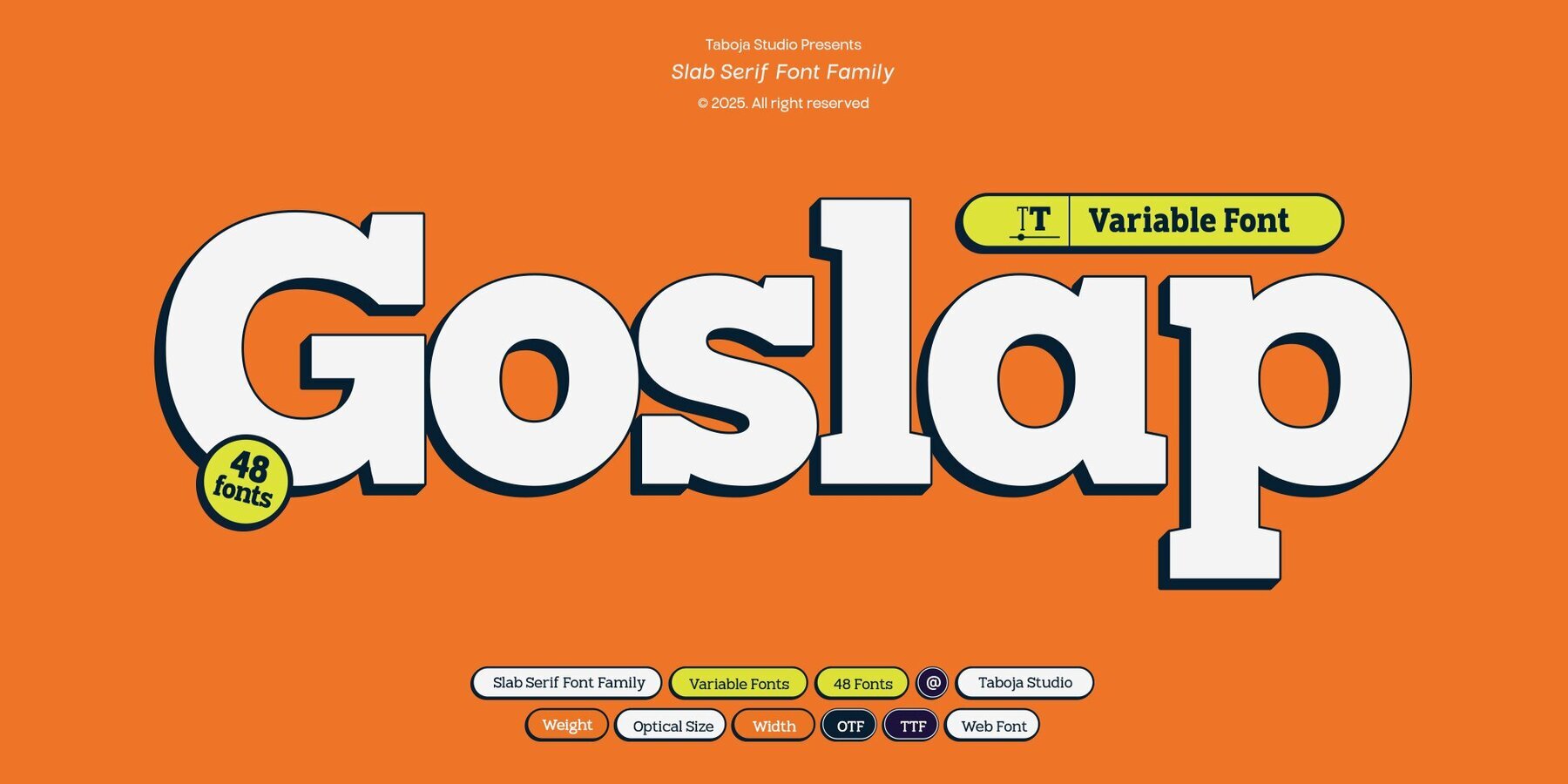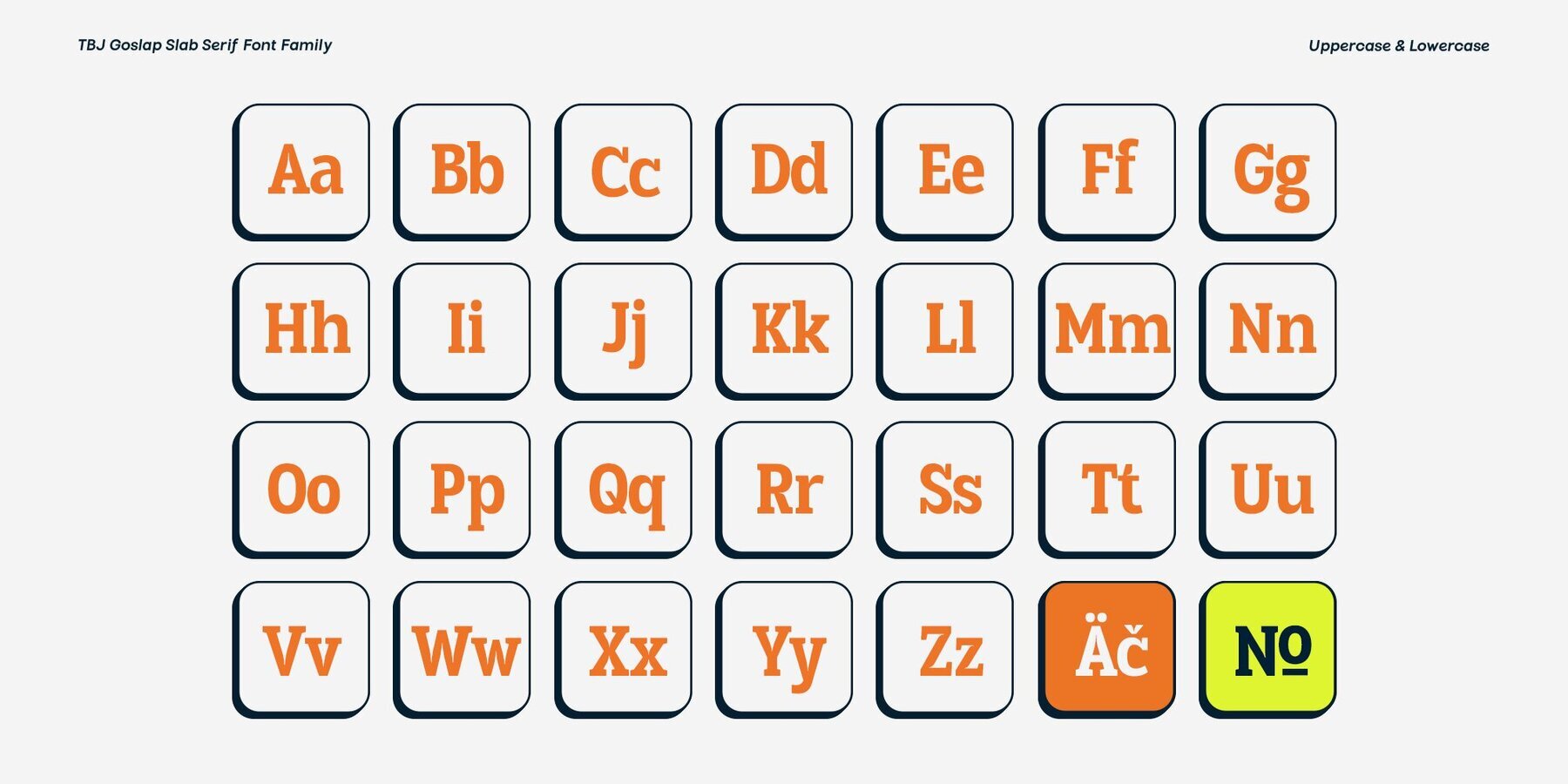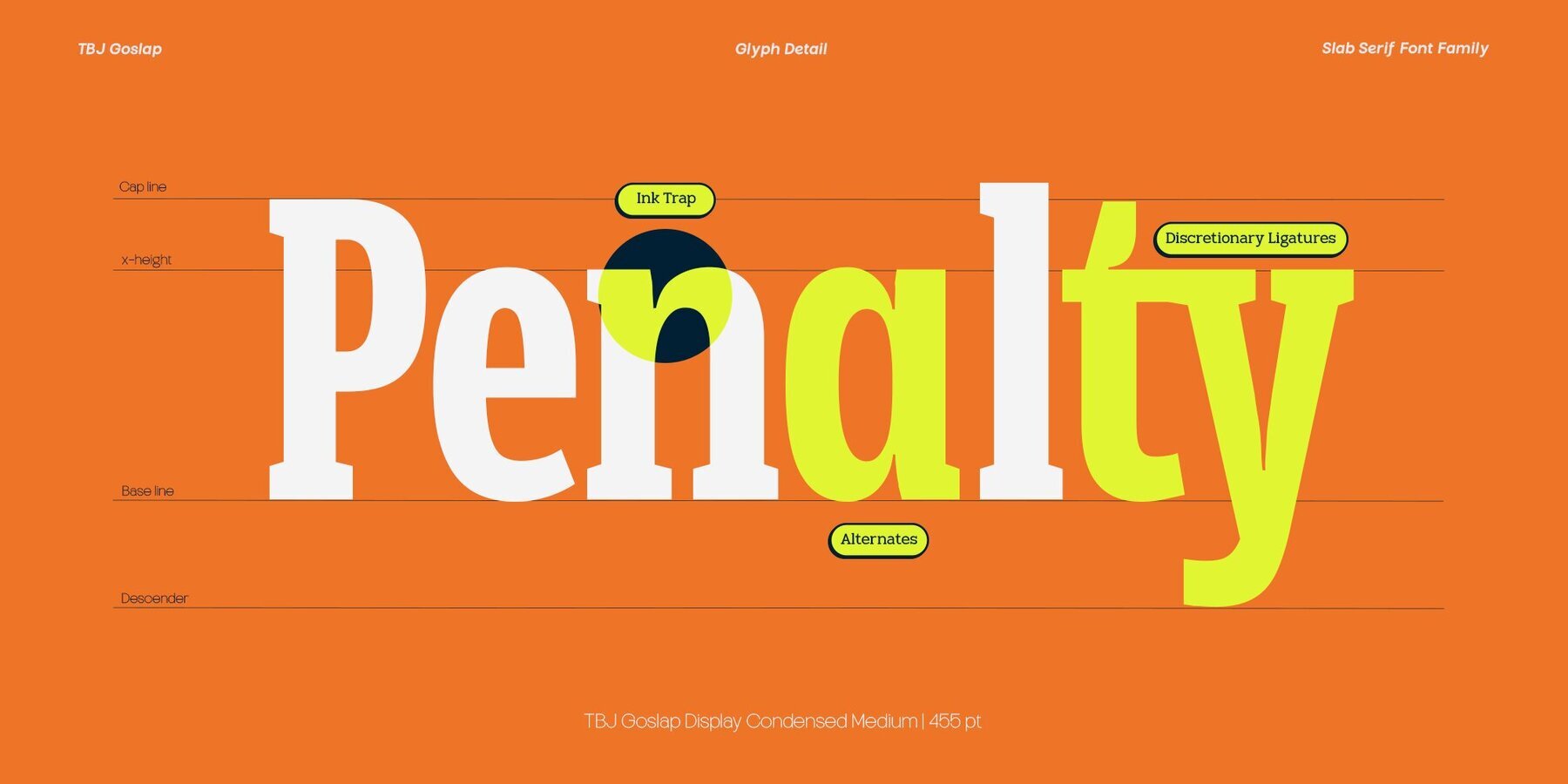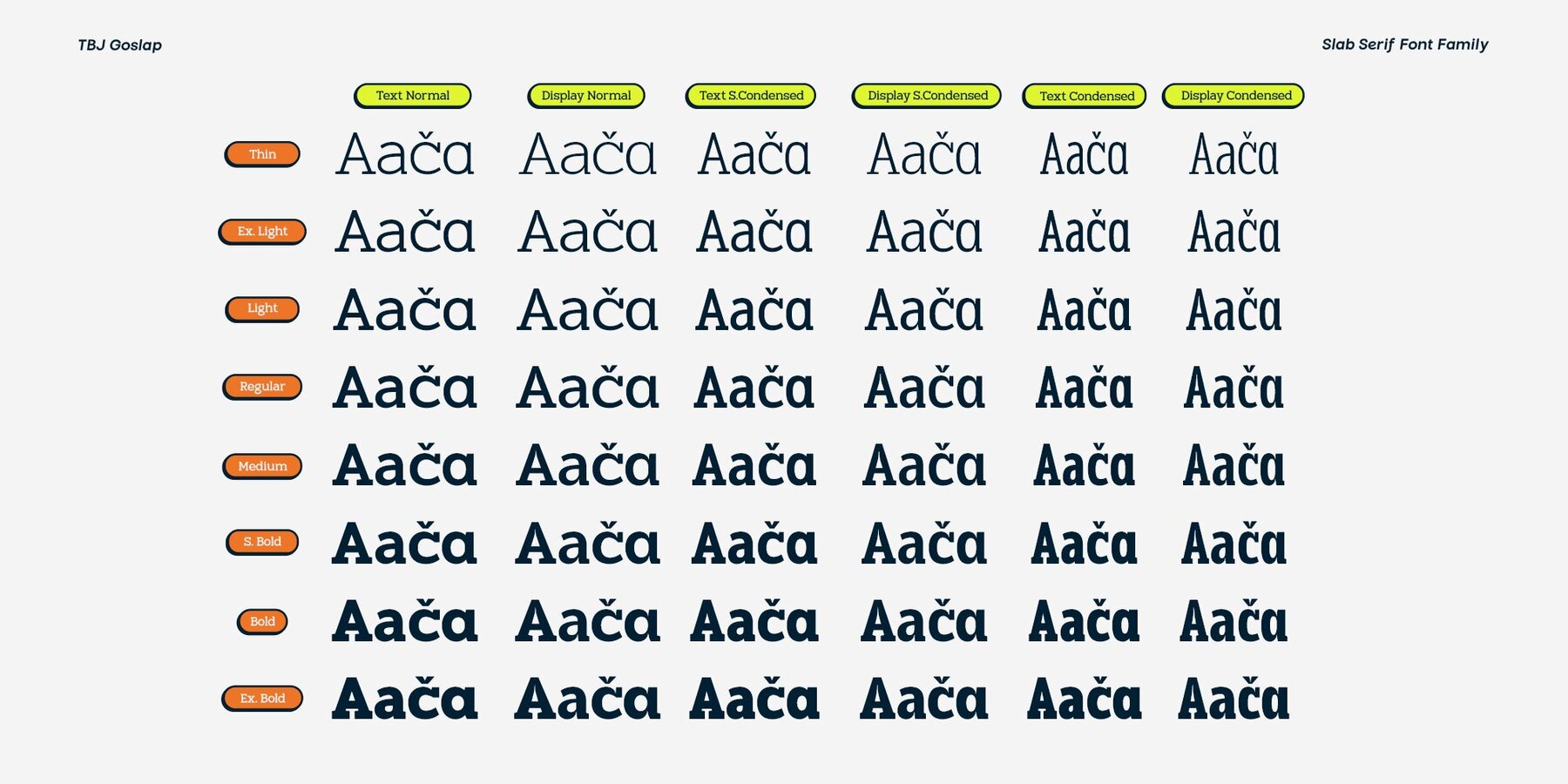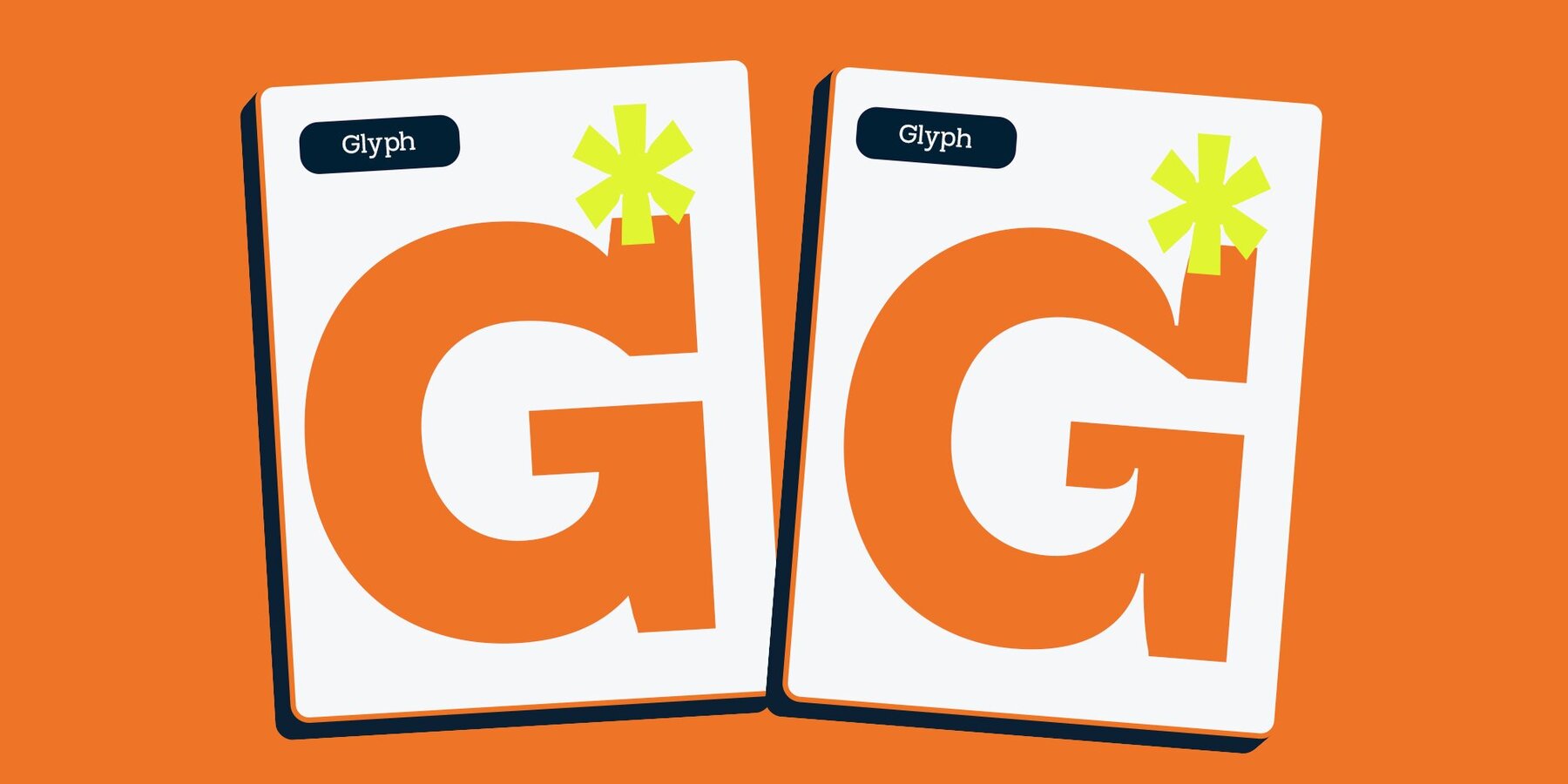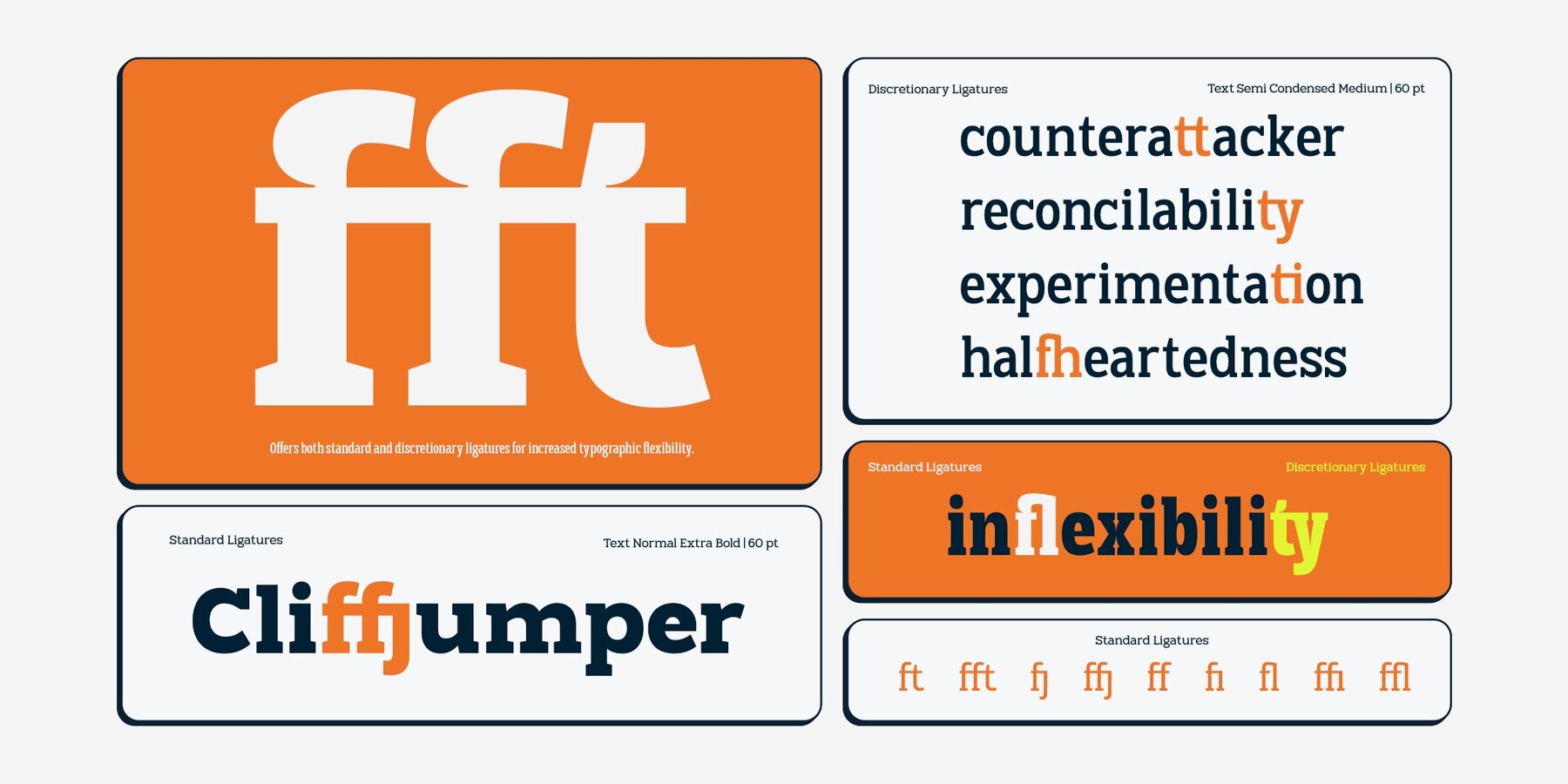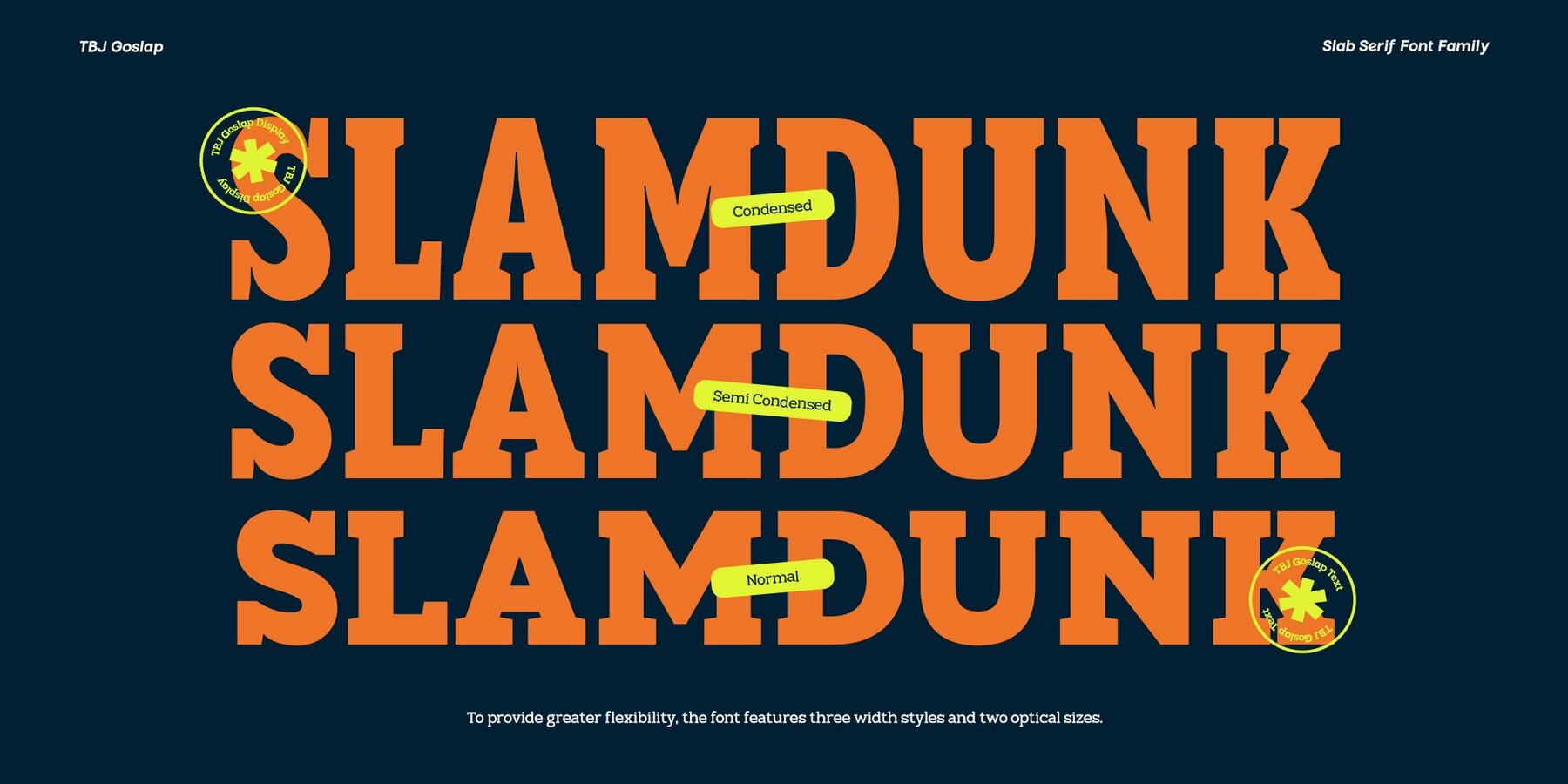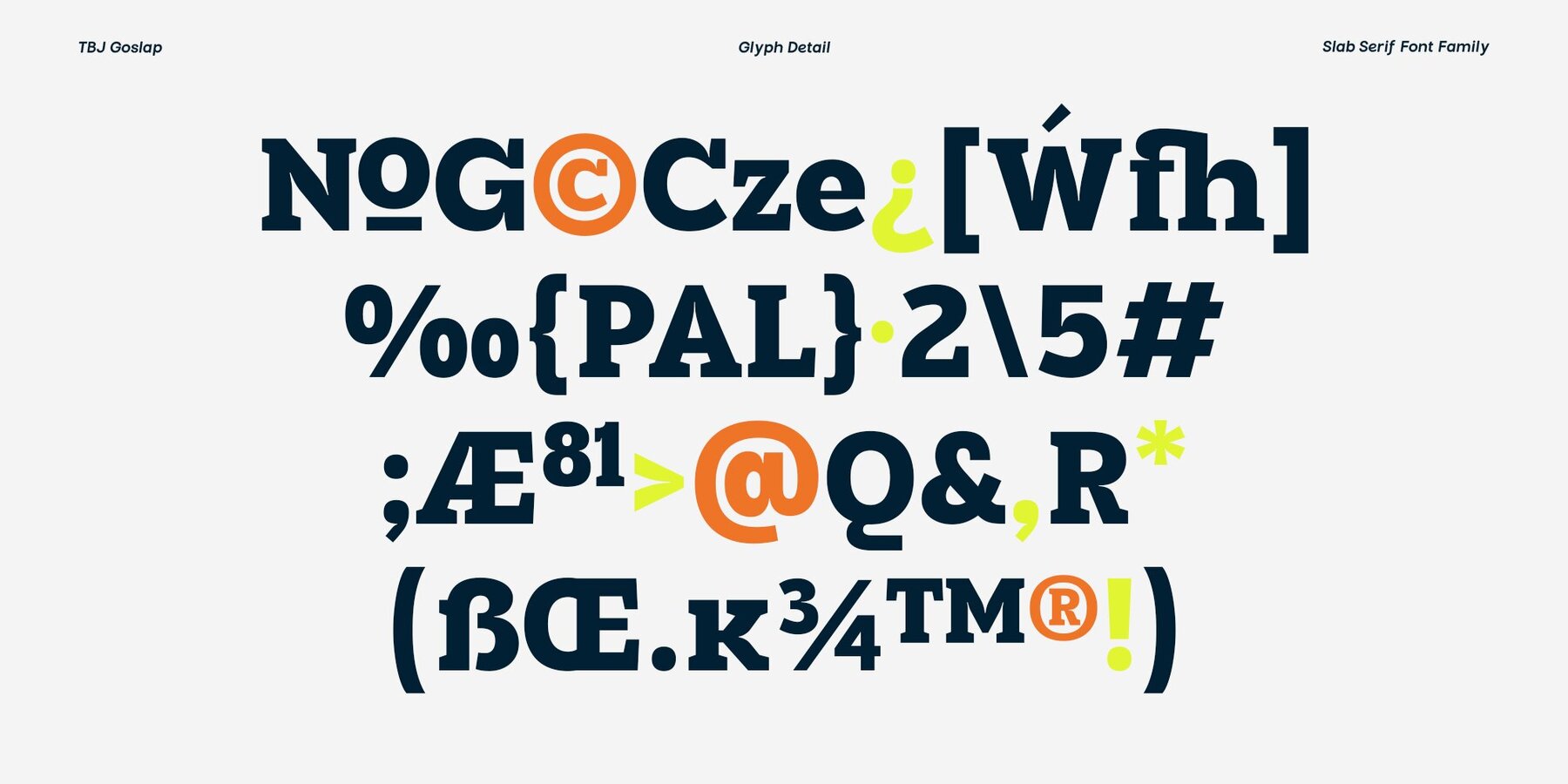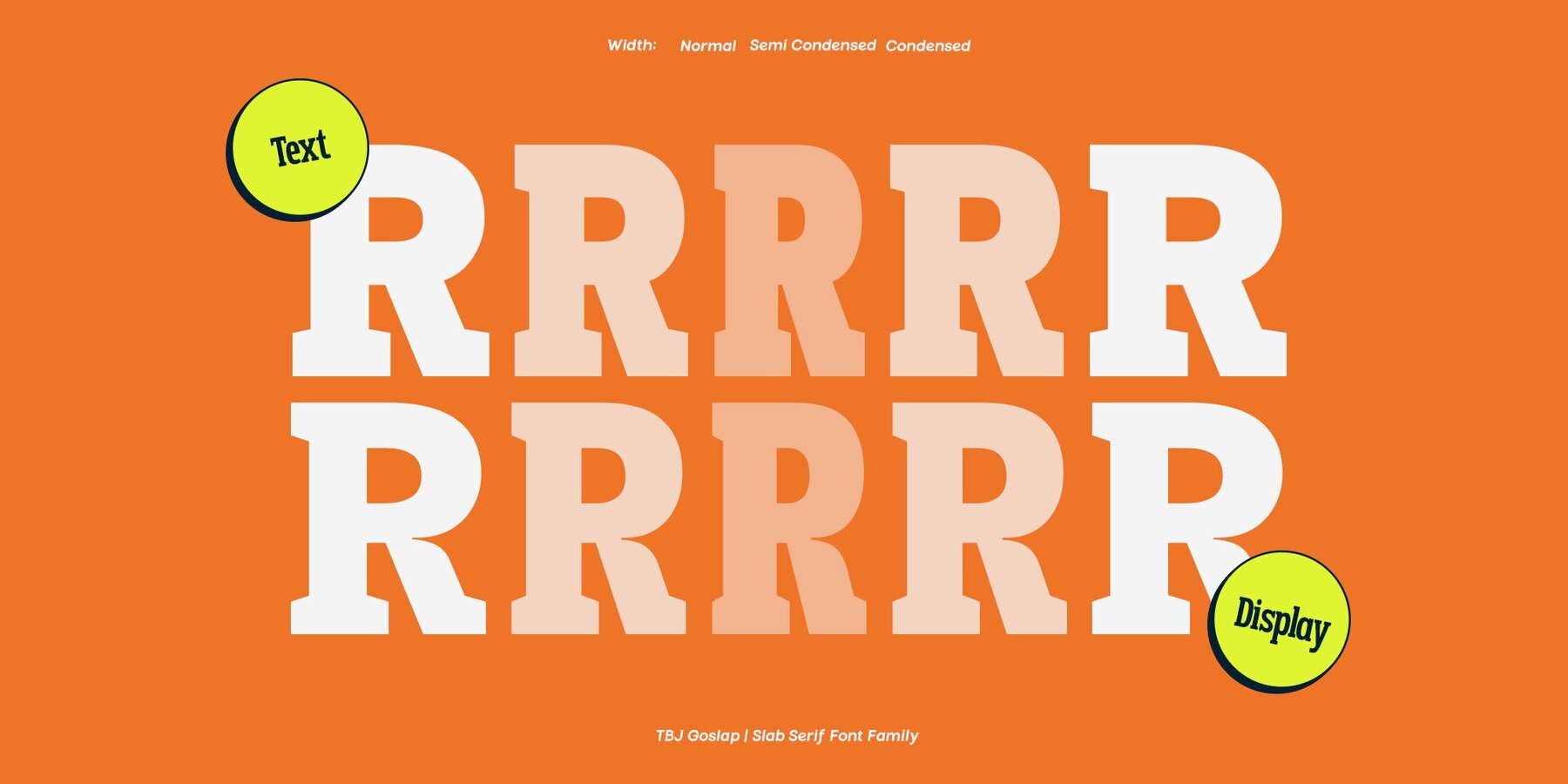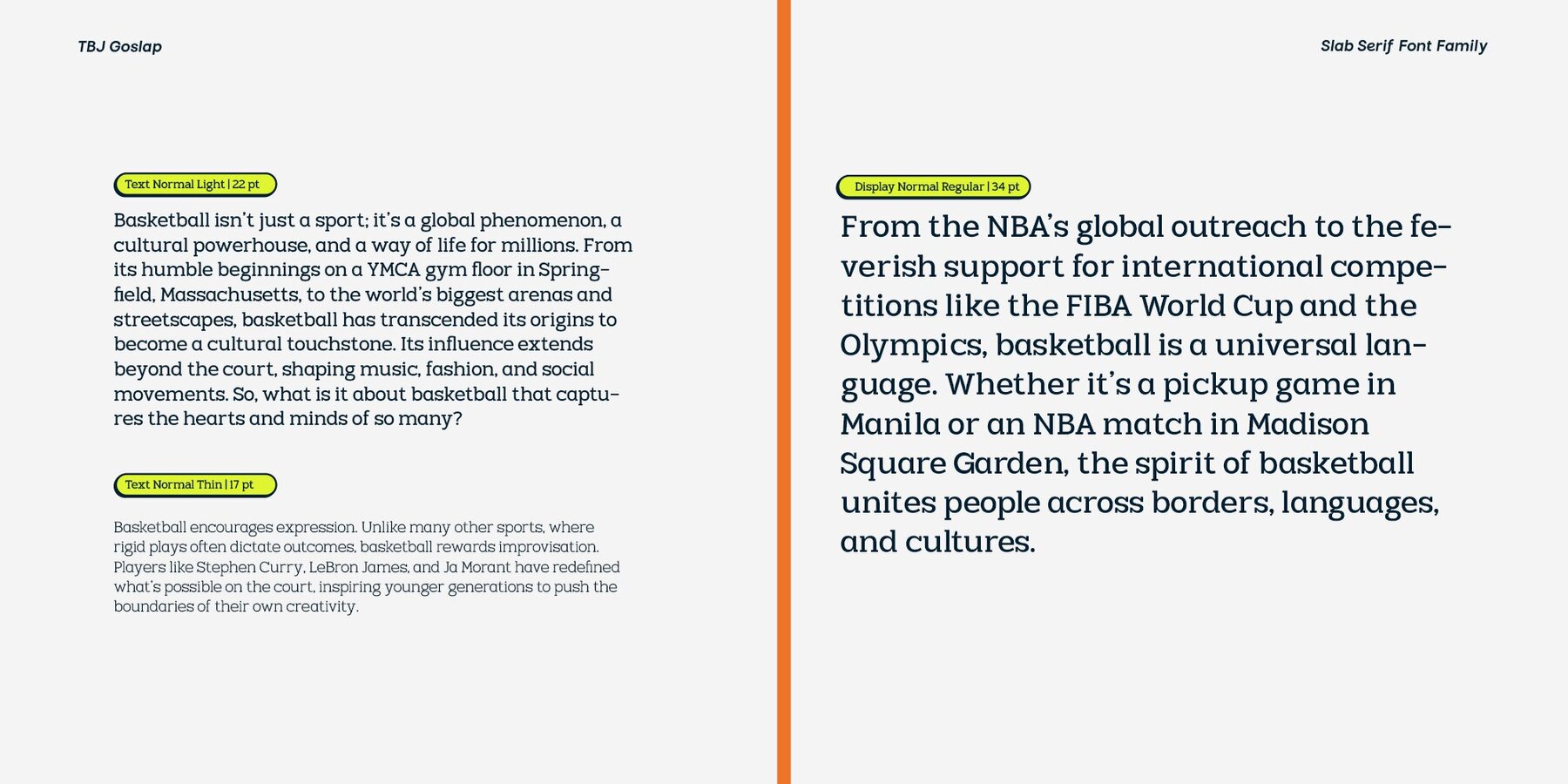
TBJ Goslap Font
We asked ourselves, "What if we could craft a slab serif font that’s bold yet adaptable, functional yet packed with character?" And that’s how TBJ Goslap was born—a font family designed to balance strength with refined aesthetics. If you’ve worked with geometric sans serifs or robust typefaces, you’ll find TBJ Goslap a refreshing addition to your toolkit. While it shares a foundation of precision and versatility, TBJ Goslap is entirely its own creation. Unlike traditional slab serifs characterized by rigid, rectangular serifs, TBJ Goslap introduces trapezoidal serifs—clean, modern, and subtly sophisticated. This design choice breaks away from the industrial feel of classic slabs, offering a contemporary edge that suits diverse design needs. When developing TBJ Goslap, we aimed to avoid the overt historicism often associated with slab serifs. For instance, the Bold and Extra Bold weights were carefully refined to steer clear of the vintage “Wild West” aesthetic while maintaining the commanding presence needed for headlines. The result? A font that’s perfect for posters, sports branding, and packaging, without leaning too far into retro territory. TBJ Goslap excels not only in its bold display styles but also in its optical versatility. With two optical sizes—Normal for text and Display for headlines—this typeface adapts effortlessly to different contexts. Whether you're creating impactful headlines or dense text arrays, TBJ Goslap delivers legibility and style in equal measure. The font family includes: 9 Weights (from Thin to Bold) With TBJ Goslap, you can achieve more than just a polished design—you can create a visual identity that commands attention, whether in print, digital, or packaging. This is a slab serif for designers who need a font that’s both functional and full of personality. To fully enjoy everything this font has to offer, programs like Adobe Illustrator, Photoshop, or Indesign (and others with OpenType support) will help you get the most out of all the glyphs and features. And if you spot anything unusual or just want to share some feedback, don’t hesitate to let us know! We're always looking to improve and fine tune.
Variable Fonts, offering seamless control over weights, widths, and optical size.
Alternate Glyphs and Ligatures, adding creativity and individuality to your designs.
Multi-Language Support, covering over 200 languages.